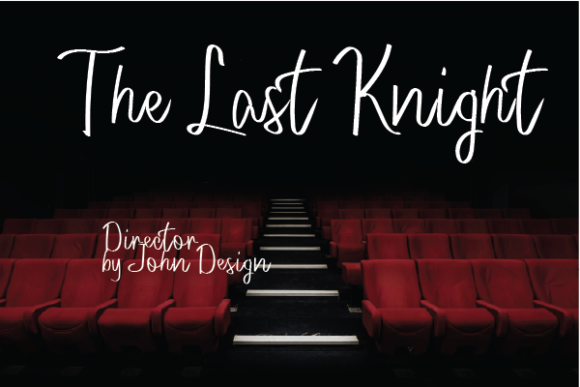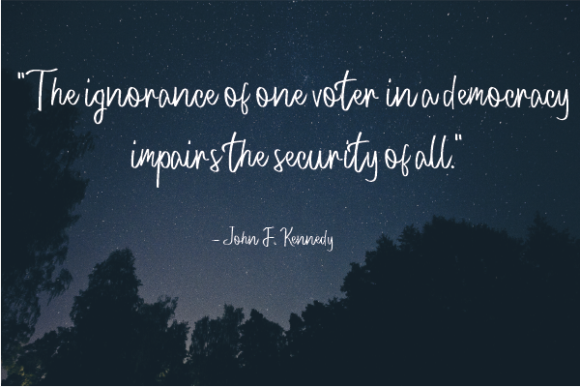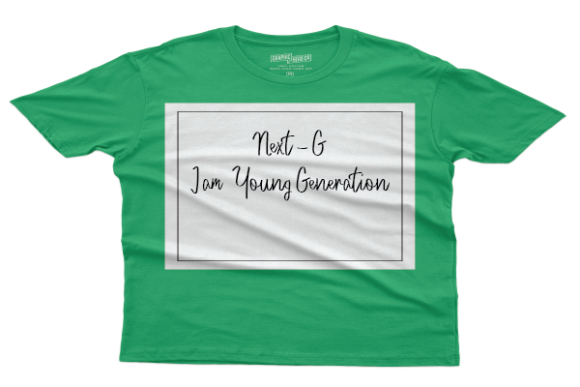
Introduction to Latimojong Font
Latimojong is a gorgeous upscale script that feels both familiar and new.
This uniquely designed font will take any design idea into a true standout .
Latimojong Font offers exceptional quality and versatility, making it a valuable addition to your design toolkit. Whether you’re creating for personal projects or commercial use, Latimojong Font delivers professional results.